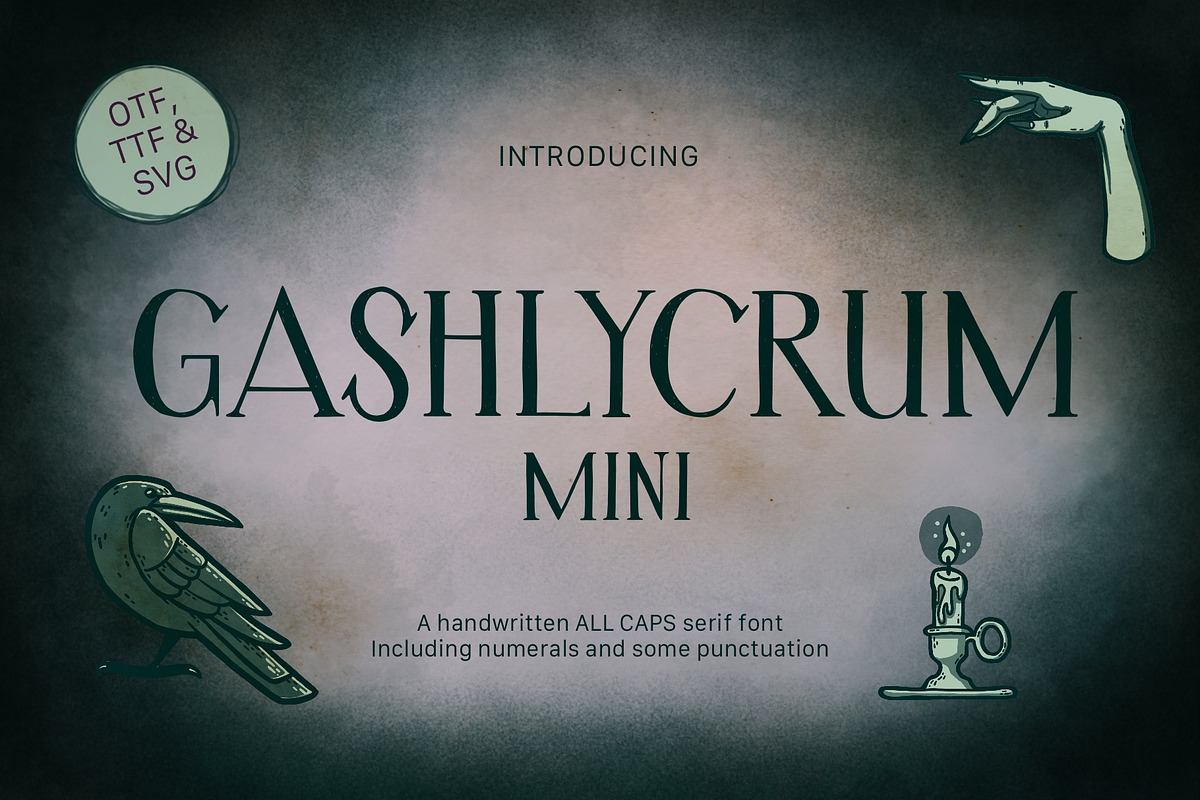
Gashlycrum Mini Free Download
Gashlycrum Mini Font Free Download
Gashlycrum Mini Font Free Download is a quirky and distinctive typeface that adds a playful, yet refined touch to your creative projects. With its unique, compact letterforms and subtle vintage charm, this font is perfect for logos, branding, book titles, event invitations, and social media graphics that need a standout, artistic aesthetic.
Whether you’re crafting a whimsical brand identity, designing a stylish cover, or adding a touch of personality to your typography, Gashlycrum Mini delivers creativity and character to any design. It’s the ideal font for designers who want a mini-sized font with big personality.